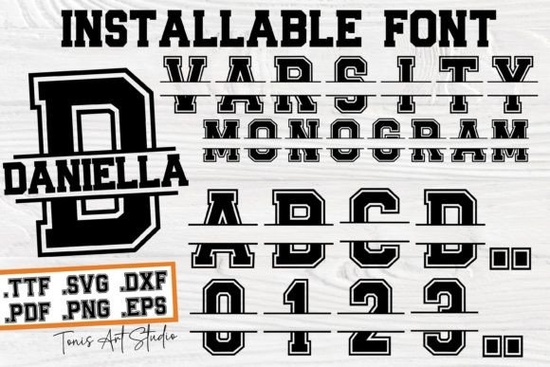
If you are working on team apparel, school spirit items, or weekend DIY decor, finding a reliable collegiate typeface can save you hours of manual tracing. The Varsity Monogram Font was designed specifically for creators who want that classic athletic look without the extra design work. It comes with clean, structured letters and matching numerals that sit well on everything from t-shirts to wooden signs. Whether you run a small print shop or just enjoy making gifts for game day, this file downloads quickly and integrates smoothly into your usual cutting software. Varsity Monogram Font
What makes this typeface different from standard athletic lettering?
Many sports typefaces lean heavily into heavy block styles or overly stylized curves, which can make fine details disappear on small items or during vinyl cutting. This collection keeps the recognizable collegiate outline but balances it with consistent stroke weights and clear counters. That means your text stays readable even when scaled down for monogram initials or jersey numbers. The design also pairs well with simpler sans serif or script options, giving you room to experiment with layered layouts. If you are looking for similar bold display options, you might also explore how the AB Soccer Varsity style handles angular letterforms for field graphics.
How can small shops and crafters actually use it for daily projects?
Print-on-demand sellers and hobbyists both benefit from a file that holds its shape across different materials. You can upload the vector or image file directly to cutting machines, or use it in mockup generators to preview team apparel before printing. The typography works especially well for several common applications:
- Custom spirit wear for local tournaments and school events
- Personalized gym bags, coolers, and water bottles
- Garage or dorm room wall signs with family names
- Sports banquets, graduation gifts, and coach appreciation items
Where should I place monogram initials for maximum visibility?
Placement changes how quickly a design reads from across a room. Left-chest positioning works well for casual wear and everyday logos, while center-back prints catch more attention during events. If you are working with oversized numbers or full team names, place them on flat sections of the garment to avoid fabric puckering. Remember: always check garment tags and seam allowances before setting up your cutting mat. For shop owners who want to offer quick customization, adding a matching Blame Sport accent to sleeve details or hat brims can increase perceived value without raising material costs.